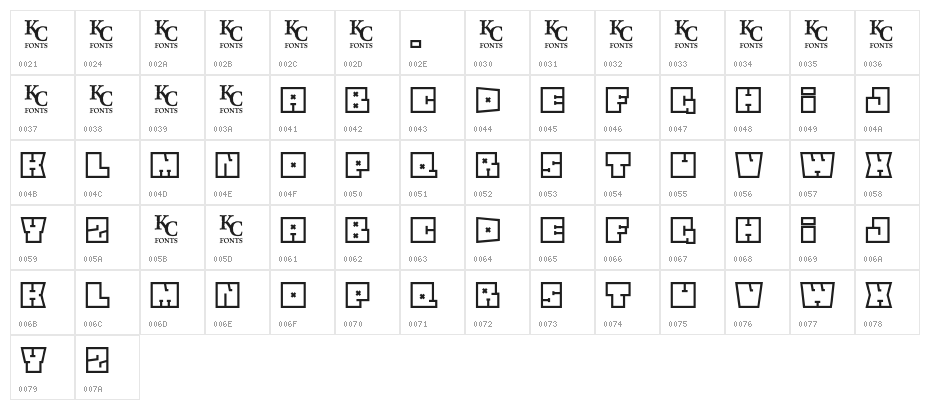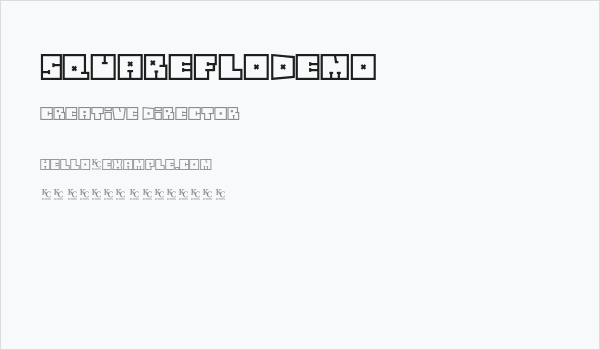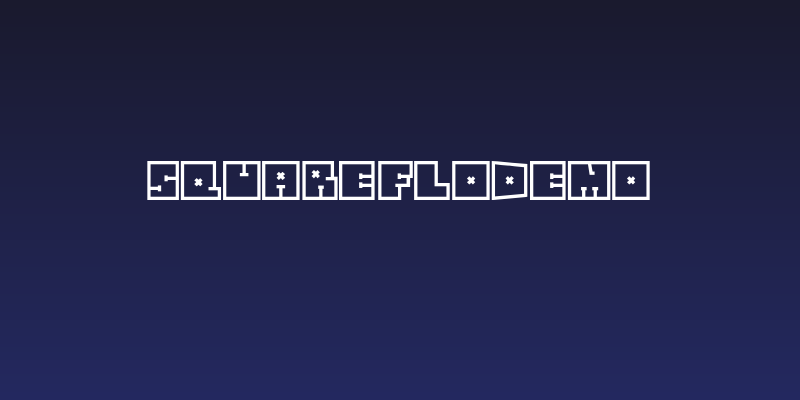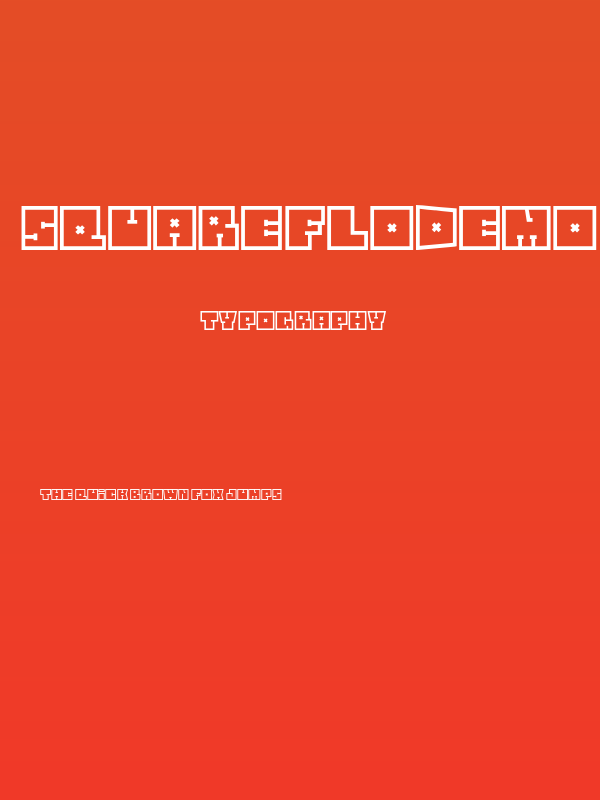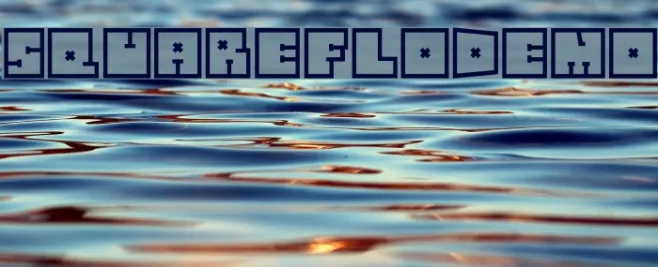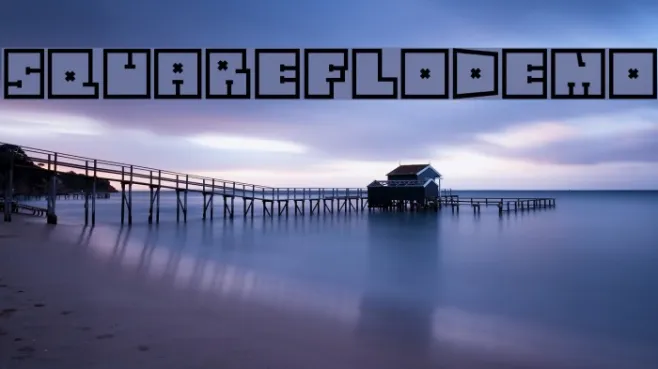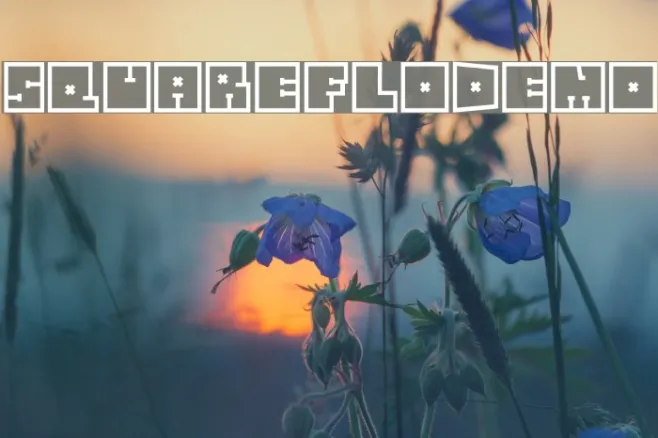
SquareFloDEMO Font
SquareFloDEMO Description
This font features a bold, geometric design with a distinct square outline around each character. The letters are uppercase and have a playful, decorative style with a star-like embellishment in the center of each character. The font is highly stylized, making it ideal for eye-catching designs. It is not suitable for body text due to its decorative nature and the intricate details that may become lost at smaller sizes. The font's unique appearance makes it perfect for creative projects that require a standout typeface.
| Proposed Projects | Ideal for posters, logos, and creative branding projects where a unique and bold typeface is needed. |